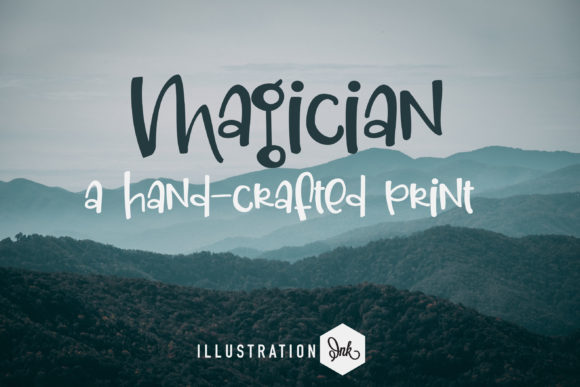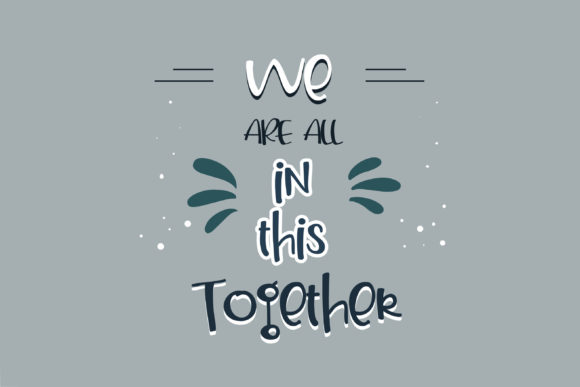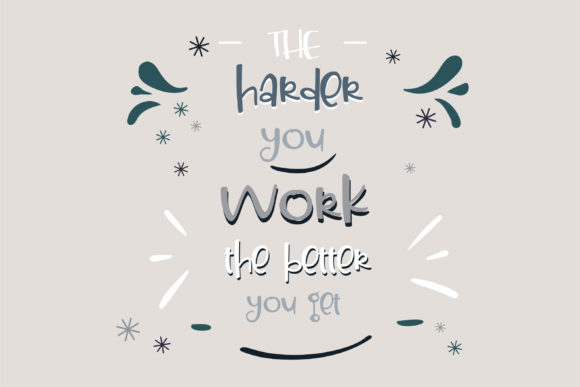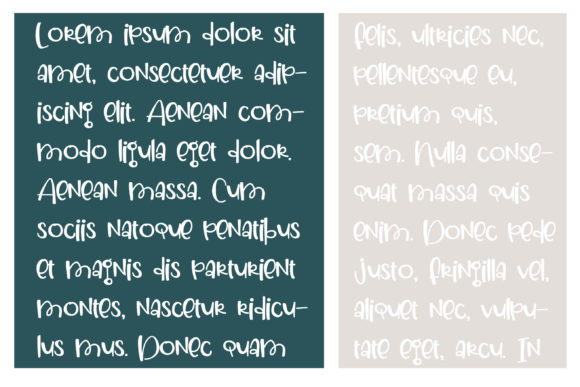
About Magician Font
Magician is a quirky and chic handwritten font. It is perfect for product packaging, branding project, magazine covers, social media, wedding, or just used to express words above the background.